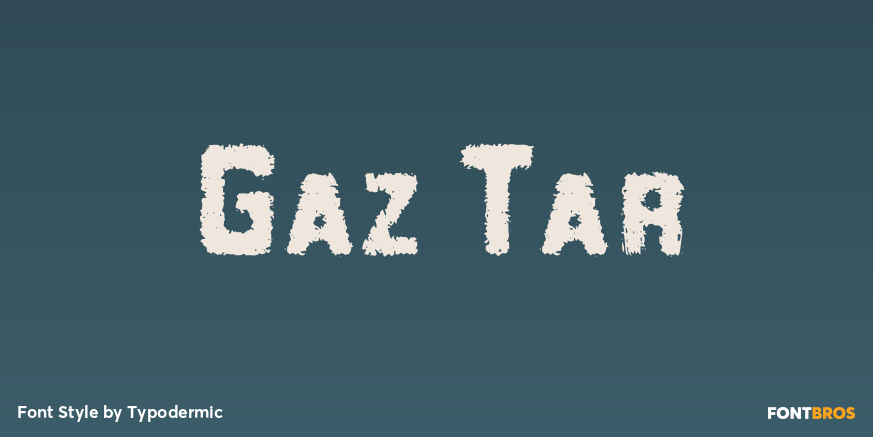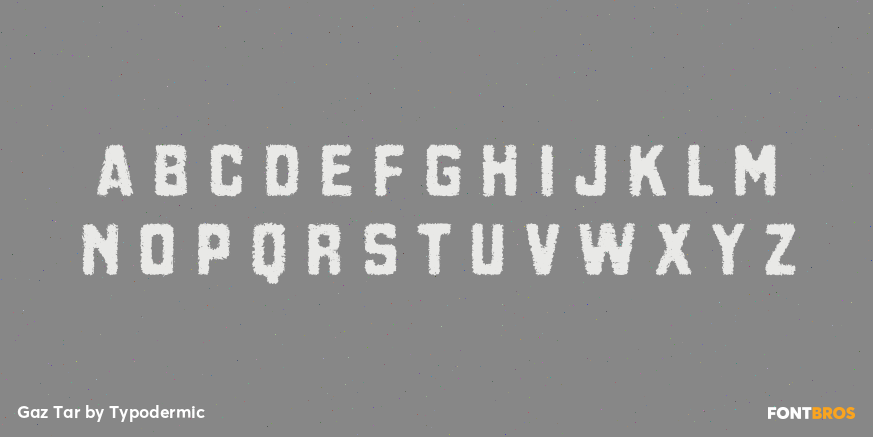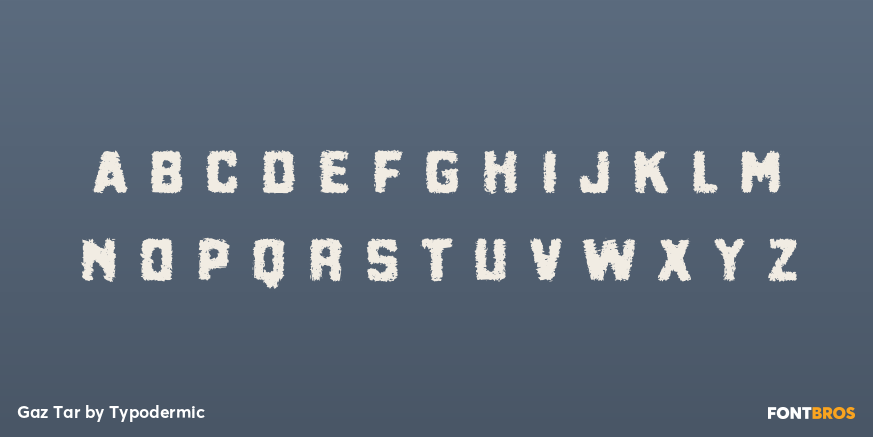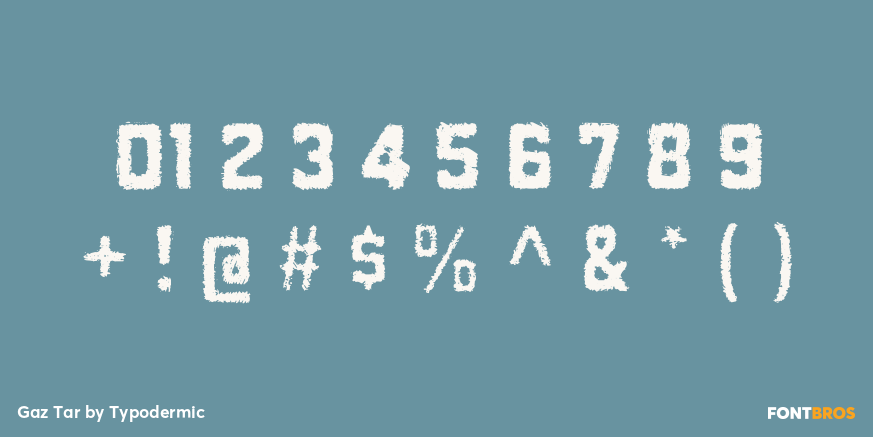
Gaz Tar
Buy NowGaz Tar keeps the heavy Gaz skeleton mostly solid inside while making the full silhouette coarse, lumpy, and ragged. Modest pits interrupt the stroke faces, but the dominant effect is an edge-led, clotted texture. That separates Tar from Fumes' pervasive speckling and Tank's large, sharply defined cavities while preserving the family's compact service-station construction.
Use Gaz Tar for rustproofing and underbody-coating packaging, tire or asphalt repair-kit branding, road-maintenance campaign posters, reuse-depot exterior graphics, and rugged workshop apparel. It answers searches for rough asphalt lettering or a tar-textured industrial font, especially for short product names and display copy that should feel coated, weathered, and work-worn.